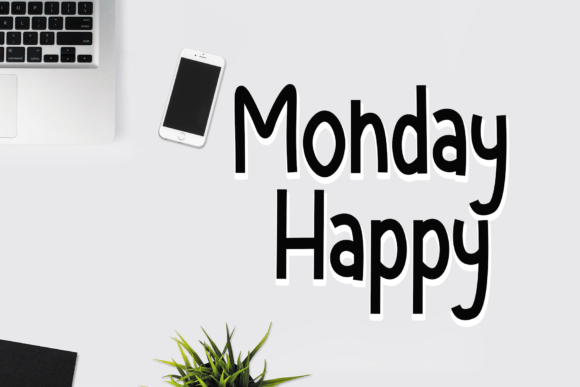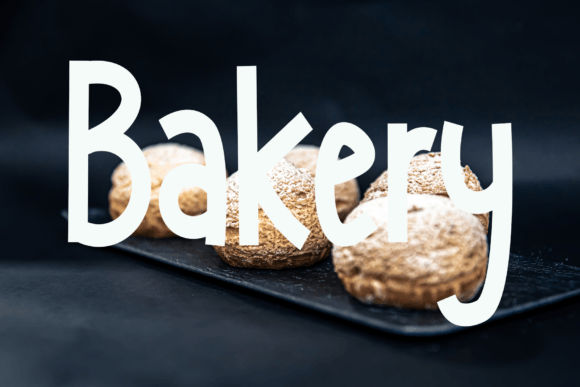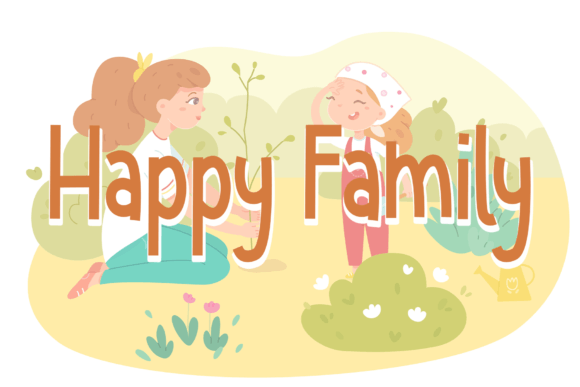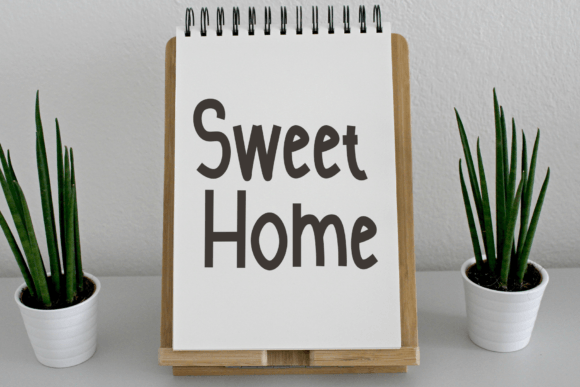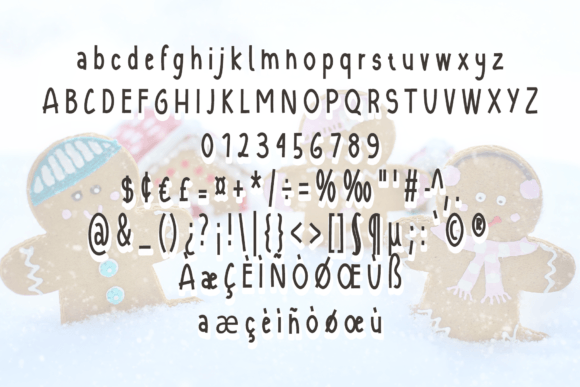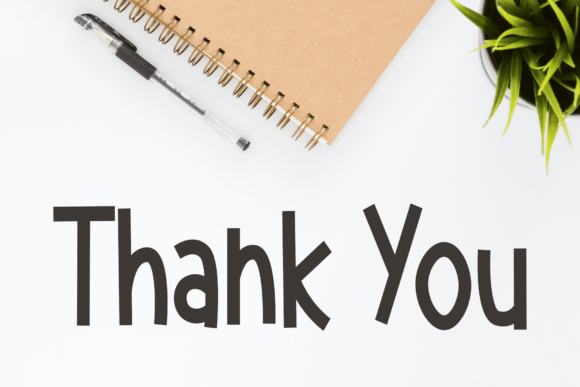
Gingerbread Font: The Sweetest Addition to Your Design Toolbox
Are you tired of using the same old fonts for your designs? Look no further than the Gingerbread Font, a simple and friendly handwritten font that’s perfect for a variety of projects. Whether you’re a designer, crafter, or DIY enthusiast, this font is sure to become your new go-to for all occasions.
The Charm of Gingerbread Font
Gingerbread Font is a beautiful, handwritten font that’s reminiscent of traditional gingerbread cookie cutters. Its playful and whimsical feel makes it perfect for a wide range of applications, from digital designs to craft projects. The font’s simplicity and friendliness evoke a sense of warmth and approachability, making it ideal for creating greeting cards, invitations, and other personal designs.
What Makes Gingerbread Font So Versatile?
One of the things that sets Gingerbread Font apart from other fonts is its versatility. Whether you’re working on a digital project, such as a presentation or social media graphic, or a physical project, like a craft or handmade card, this font adapts seamlessly. Its clear and legible letters make it easy to read, while its playful feel adds a touch of personality to any design.
Perfect for Crafts and DIY Projects
Crafters and DIY enthusiasts will love Gingerbread Font for its ability to add a personal touch to handmade projects. Use it to create custom titles for scrapbook pages, decorate handmade cards, or add a touch of whimsy to your journaling. The font’s handwritten feel makes it perfect for projects that require a personal and intimate touch.
Ideal for Digital Design and Presentations
Digital designers and presenters will appreciate Gingerbread Font’s clean and legible letters, making it easy to read on a variety of devices. Use it to create engaging social media graphics, add a touch of personality to your presentations, or create custom email headers. The font’s simplicity and friendliness make it perfect for digital designs that require a professional yet approachable feel.
Why Choose Gingerbread Font?
So, why choose Gingerbread Font over other fonts? Here are just a few reasons:
- Unique and Playful Feel: Gingerbread Font has a distinctive and playful feel that’s sure to set your designs apart from the crowd.
- Versatility: This font is perfect for a wide range of projects, from digital designs to craft projects.
- Easy to Read: The font’s clear and legible letters make it easy to read, even at small sizes.
- Personal Touch: Gingerbread Font’s handwritten feel adds a personal touch to any design, making it perfect for projects that require a intimate and emotional connection.
How to Use Gingerbread Font
Using Gingerbread Font is easy! Here are a few tips to get you started:
- Pair it with Other Fonts: Try pairing Gingerbread Font with other fonts to create a unique and interesting contrast.
- Experiment with Colors: The font’s simplicity makes it perfect for experimenting with different colors and textures.
- Add Decorations: Use Gingerbread Font as a base and add decorations, such as illustrations or graphics, to create a more elaborate design.
In conclusion, Gingerbread Font is a simple and friendly handwritten font that’s perfect for a variety of projects. Its versatility, unique feel, and ease of use make it an ideal addition to any design toolbox. Whether you’re a designer, crafter, or DIY enthusiast, this font is sure to become your new go-to for all occasions. So why not give it a try and see how it can sweeten up your designs?